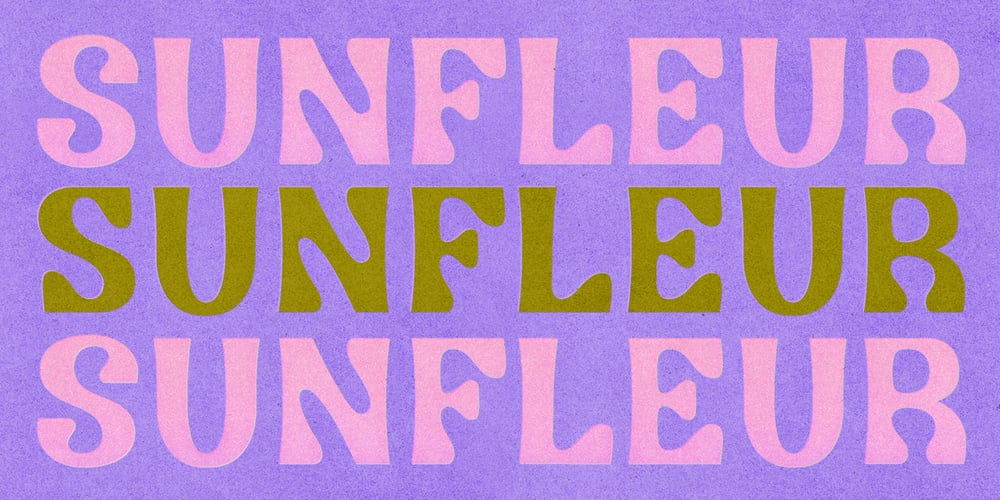
Sunfleur Font Family was designed by Joanna Durkalec and published by Valley Type. Sunfleur contains 1 styles and family package options. Sunfleur is a high dose of peace and love. With flared edges and rounded terminals, its playful forms were inspired by the flower child style of the 1960s. The waxing and waning curves of the letters complement each other for optimal readability and flow. Sunfleur also features a series of happy flower icons. Bring positive energy to logos, headlines, packaging, editorial, and posters. Includes all uppercase characters with punctuation, glyphs, diacritics, numerals, icons, and multilingual support.